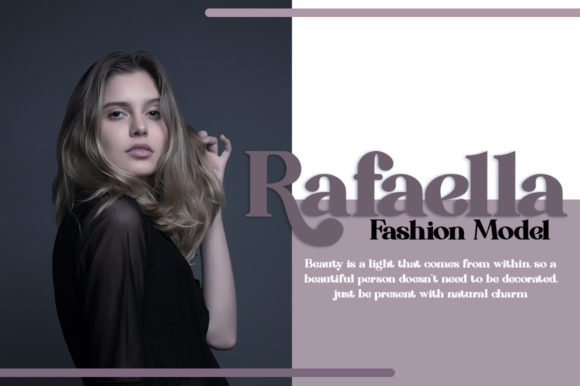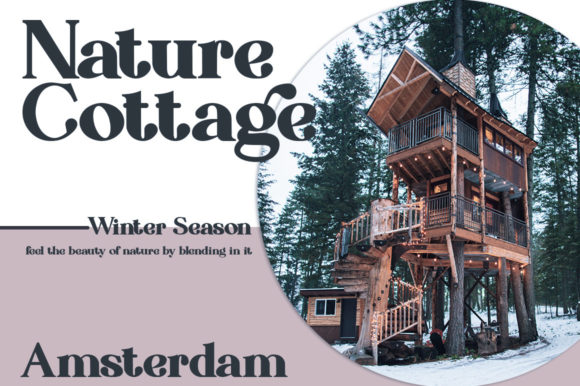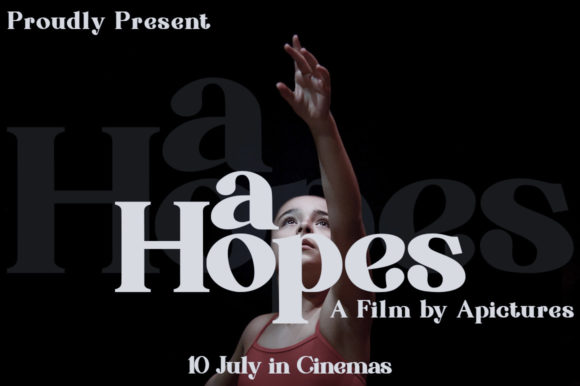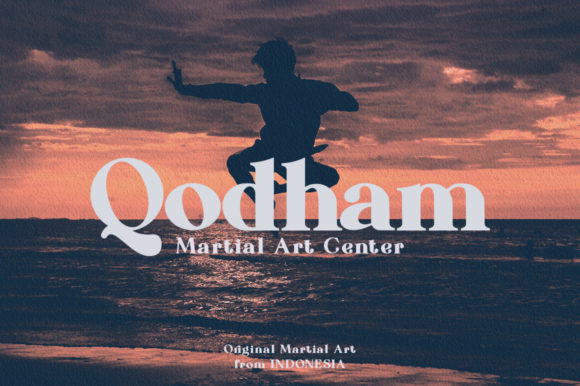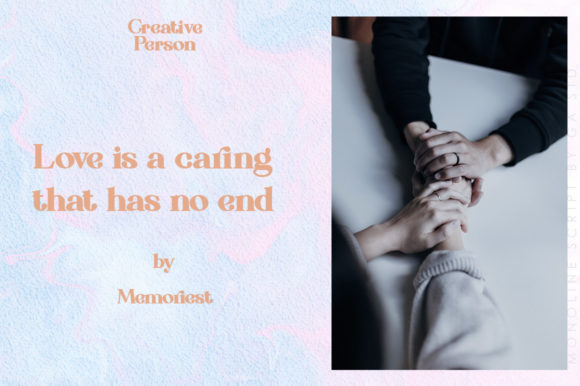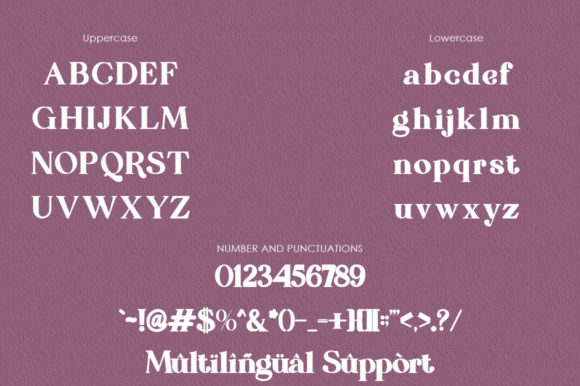
Discover the Elegance of Brief River Font: Elevate Your Designs with Style
In the world of typography, a font can make or break the aesthetic of a design. For designers and crafters looking for that perfect blend of trendiness and elegance, Brief River Font stands out as a remarkable choice. This article will dive deep into the features and benefits of Brief River, a stylish serif font that is quickly becoming a favorite among creative professionals.
What is Brief River Font?
Brief River Font is a modern, trendy, and stylish serif font designed to add a touch of sophistication to any project. Whether you’re working on a branding project, a website design, or crafting beautiful printable art, Brief River offers the versatility and elegance you need. Its well-crafted letters and classic serif structure evoke a sense of tradition, while its clean lines and contemporary feel keep it firmly in the realm of modern typography.
One of the standout features of Brief River Font is its PUA (Private Use Area) encoding. This means that the font comes with a wide range of glyphs and swashes that are easily accessible. For designers, this translates to greater flexibility and creativity. With PUA encoding, you can effortlessly insert various stylistic alternates, ligatures, and swashes into your text, allowing for a high degree of customization. This feature is particularly useful for those looking to add unique touches to their designs without the hassle of complicated font editing software.
Key Features of Brief River Font
- Trendy and Stylish Design: Brief River boasts a contemporary serif design that fits well with current design trends, making it perfect for projects that require a modern aesthetic.
- PUA Encoded: Enjoy easy access to a wide range of glyphs, swashes, and stylistic alternates, enhancing your design capabilities.
- Versatility: Suitable for a variety of projects, including branding, web design, printables, and more.
- Elegant and Readable: The font’s classic serif structure ensures readability, while its modern twist adds elegance.
Use Cases for Brief River Font
The versatility of Brief River Font makes it suitable for a multitude of design projects. Here are some popular use cases:
- Branding and Logotypes: The unique and stylish nature of Brief River makes it an excellent choice for logos and brand identities that require a distinctive touch.
- Website Design: Enhance your website’s typography with Brief River, adding a level of sophistication and professionalism to your online presence.
- Printables and Stationery: Create beautiful printable art, planners, journals, and stationery that stand out with the elegant look of Brief River.
- Advertising and Marketing Materials: Use Brief River to create eye-catching ads, brochures, and marketing materials that capture attention and convey a sense of luxury.
Tips for Using Brief River Font Effectively
To get the most out of Brief River Font, consider the following tips:
- Experiment with Swashes: Take advantage of the font’s swashes and glyphs to add decorative elements to your text.
- Mix and Match: Don’t be afraid to combine Brief River with other fonts to create a unique and balanced typography scheme.
- Adjust Font Sizes: Play with different font sizes to emphasize headings and subheadings, creating a visually appealing hierarchy of information.
Brief River Font is a powerful tool for designers and crafters looking to infuse their projects with a trendy yet elegant serif font. Its PUA encoding, stylish design, and versatility make it an excellent addition to any creative toolkit. Whether you’re aiming to create stunning brand identities, enhance your website’s typography, or craft beautiful printables, Brief River offers the perfect blend of style and functionality. Explore the possibilities with Brief River Font today and elevate your designs to new heights.